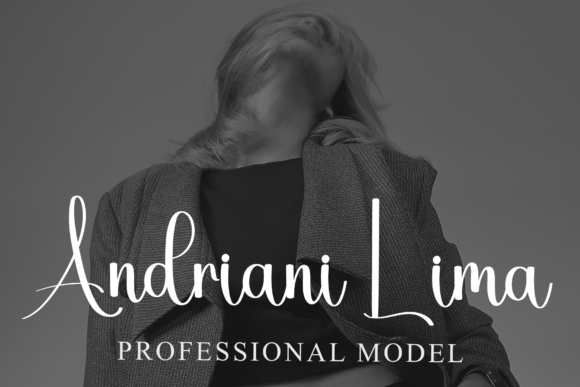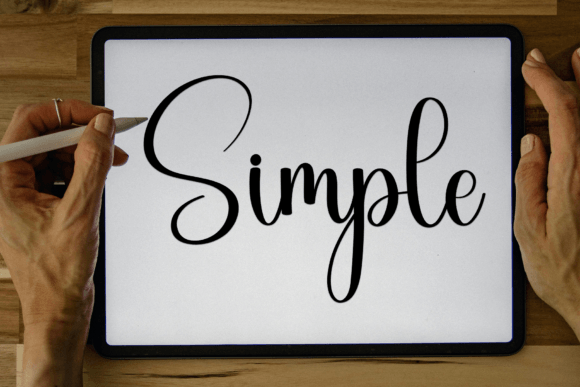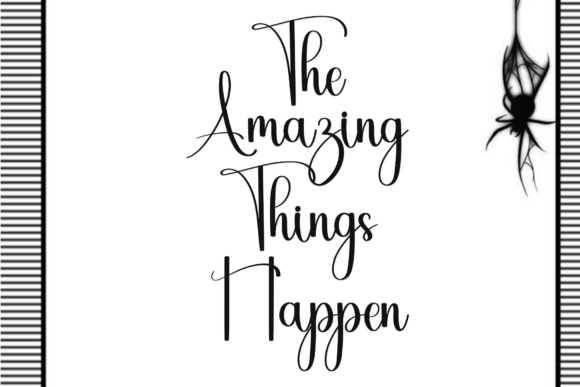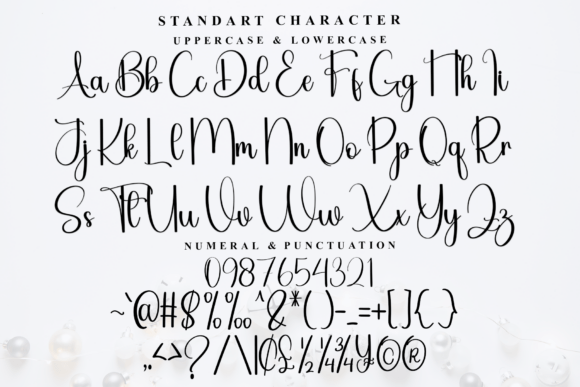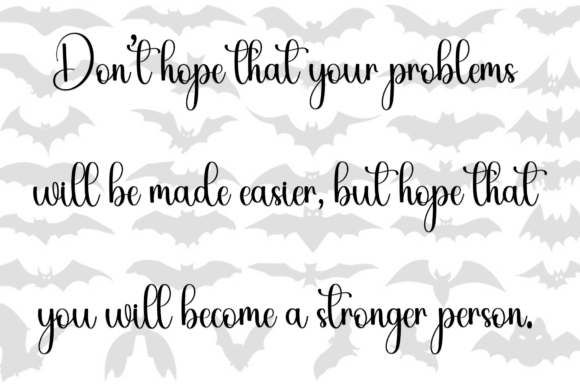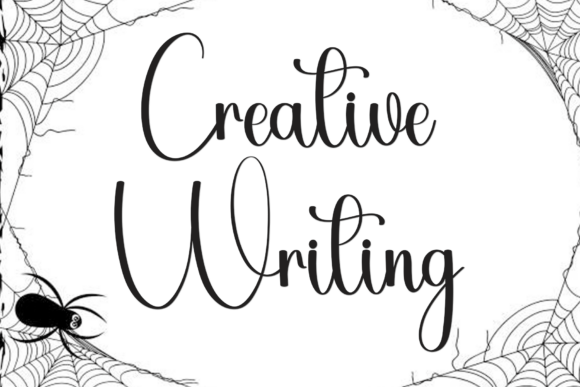
The Enchanting Dracula Font: A Designer’s New Best Friend
I’ll never forget the time I was working on a project for a client’s birthday party invitation. I had the design concept nailed down, but I just couldn’t find the right font to bring it all together. The client wanted something warm, friendly, and playful, but not too formal. I scoured the internet, tried out dozens of fonts, and still, nothing seemed quite right. That was until I stumbled upon the Dracula font. ✨
At first glance, I thought the name might be a bit misleading – I mean, Dracula is the iconic vampire, right? But as soon as I took a closer look at the font, I knew I had found what I was looking for. The Dracula font is a casual handwritten font that exudes warmth and friendliness. Its rounded, playful strokes give a relaxed and approachable feel, perfect for personal projects, invitations, and social media graphics.
- ✨ The charming, hand-drawn aesthetic adds a delightful, whimsical touch to any design.
- ✅ The font is incredibly versatile and can be used for a wide range of projects, from invitations to social media graphics.
- 💕 The friendly and approachable feel of the font makes it perfect for designs that need a personal touch.
While the Dracula font is amazing, it’s not perfect. ⚠️ One thing to note is that it may not be the best choice for very formal or professional projects, as it can come across as a bit too casual. Additionally, some of the letters may be a bit too condensed, which can make them difficult to read at very small sizes. 🤔
The Story Behind Dracula Font
The Dracula font was designed by a talented type designer who wanted to create a font that was both friendly and approachable. The designer drew inspiration from classic handwritten fonts, but with a modern twist. The result is a font that is both timeless and trendy, perfect for designers who want to add a personal touch to their projects.
Q: What is the Dracula font best used for?
A: The Dracula font is best used for personal projects, invitations, and social media graphics that need a friendly and approachable feel.
Q: Is the Dracula font suitable for formal projects?
A: While the Dracula font is amazing, it may not be the best choice for very formal or professional projects, as it can come across as a bit too casual.